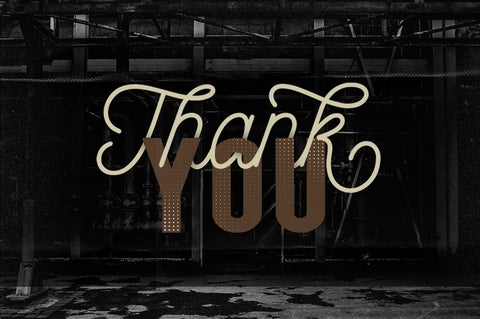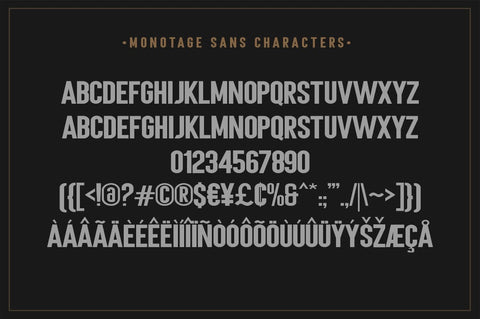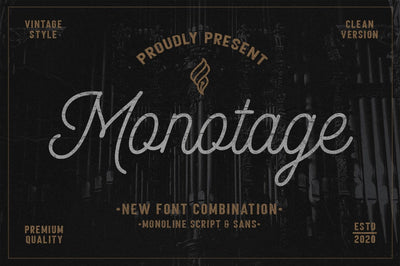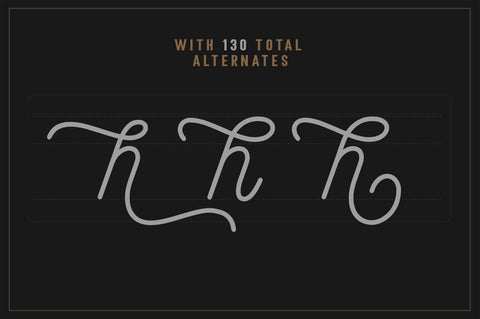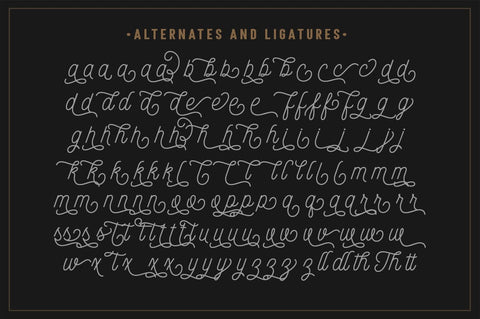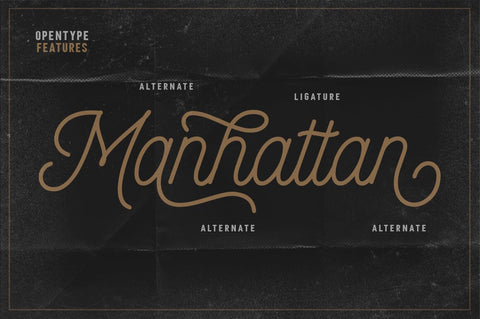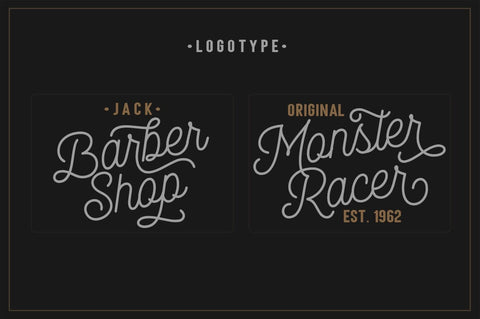
Monotage Font Duo
Monotage a modern combination Monoline Script and Sans.
Monotage Font Duo, a classy, contemporary pair of Monoline Script and Sans. With a stylish didot-style Sans font and a free-flowing, expressive script companion, Monotage offers beautiful typographic harmony for a diversity of design projects, including logos & branding, wedding designs, social media posts, advertisements & product designs.
Monotage Script • A clean, free-flowing script font containing upper & lowercase characters, numerals and a large range of punctuation.
Monotage Sans • A classy Sans font containing uppercase characters, numerals and a large range of punctuation. Creates a perfect pairing contrast with Monotage Script fonts.
Monotage Script Ligatures & Alternates • Monotage Monoline Script also includes 5 character ligatures and 130 alternates.